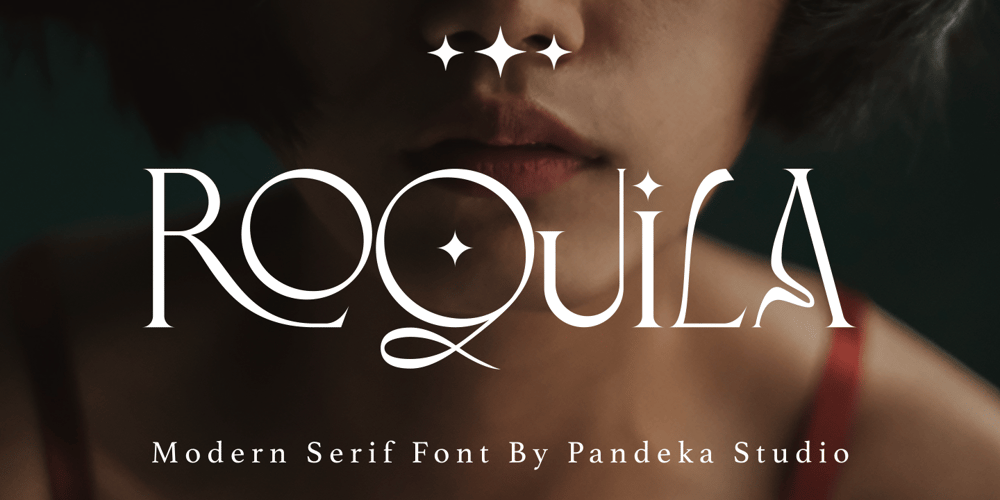
Roquila Font Family was designed by Sagara Nararya and published by Pandeka Studio. Roquila contains 1 styles and family package options. Say hello to the new classic nineties retro font, Roquila!Roquila – A classic nineties retro with a complementary italic version. In the italic family, we make it different from the regular and make a shape with a unique uppercase so it looks more classic, retro but a little modernIncluded : Roquila Main Files Letters, numbers, symbols, and punctuation Use in many programs even in Canva -Multilingual Support Language Support: Danish, English, Estonian, Filipino, Finnish, French, Friulian, Galician, German, Gusii, Indonesian, Irish, Italian, Luxembourgish, Norwegian Bokmål, Norwegian Nynorsk, Nyankole, Oromo, Portuguese, Romansh, Rombo, Spanish, Swedish, Swiss-German, Uzbek (Latin)ThanksPandeka Studio